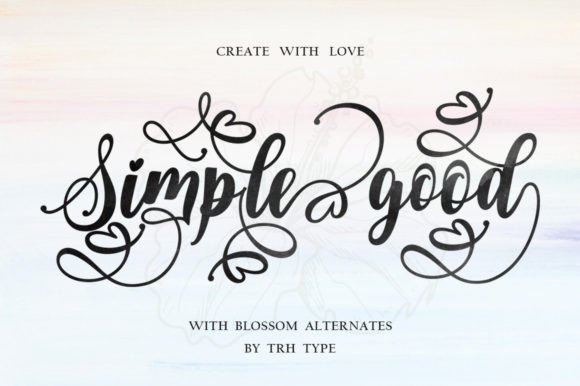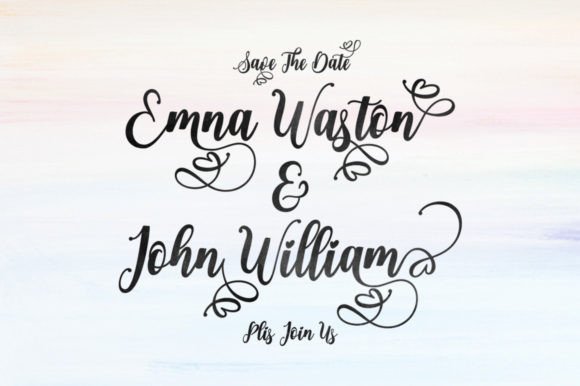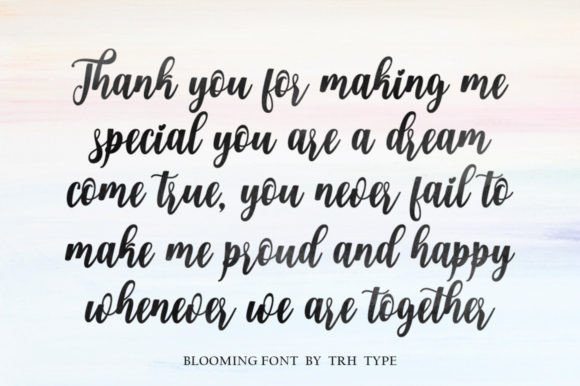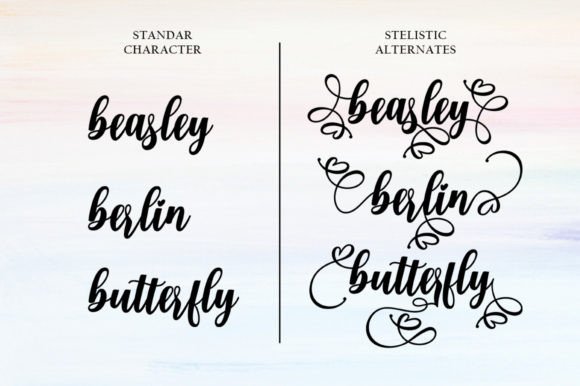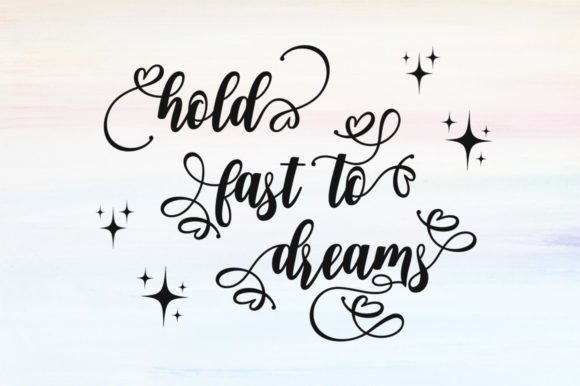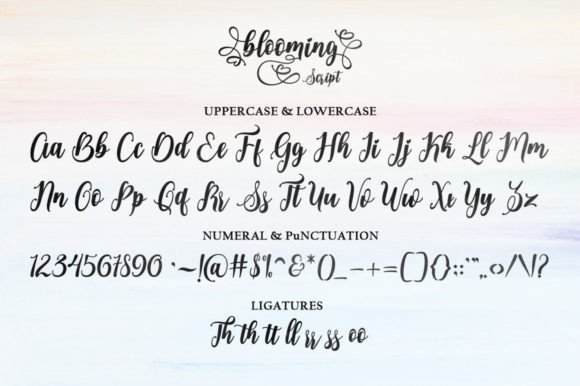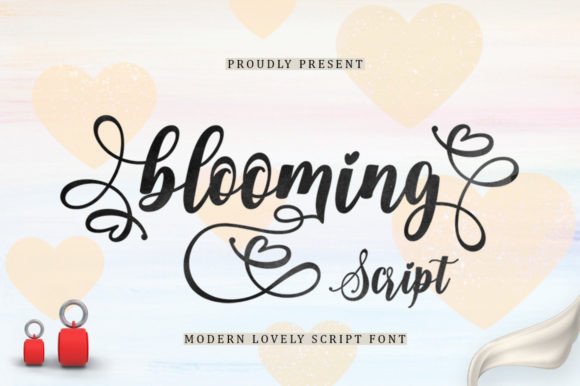
The Blooming Font: A Fresh Take on Modern Script Typography
I’ll never forget the moment I stumbled upon the perfect font for a client’s wedding invitation project. I had been searching for what felt like hours, scrolling through page after page of Google results, and testing font after font in Canva. But nothing seemed quite right – until I discovered the Blooming font. With its fresh, modern take on script typography and handcrafted calligraphic style, it was love at first sight! 💕
- ✅ The Blooming font boasts a beautiful, modern script style with a handcrafted feel that’s perfect for invitations, greeting cards, and other creative projects.
- ✅ With its PUA encoding, accessing the amazing glyphs and ligatures is a breeze, giving you a wide range of options to customize your designs.
- ✅ The font includes numerous heart illustrations, adding a playful touch to your designs and making it ideal for projects that require a touch of whimsy.
- ✅ It’s incredibly versatile, suitable for various design applications, including branding materials, business cards, quotes, posters, and more!
While the Blooming font is exceptional, there are a few minor things to keep in mind:
- 🤔 Some users might find the font’s dancing baselines a bit challenging to work with, especially when it comes to aligning text.
- ⚠️ As with any script font, it may not be the best choice for body text or long paragraphs, as it can be a bit harder to read.
The Blooming font was designed with the intention of capturing the beauty and elegance of handcrafted calligraphy. The designer, inspired by the works of traditional calligraphers, aimed to create a font that would bring a touch of whimsy and romance to creative projects. With its unique blend of modern and classic elements, the Blooming font is sure to delight designers and crafters alike.
Q: What is PUA encoding, and how does it benefit the Blooming font?
A: PUA (Private Use Area) encoding allows designers to access a wide range of glyphs and ligatures, making it easier to customize and personalize their designs. In the case of the Blooming font, PUA encoding provides access to numerous heart illustrations and other decorative elements.
Q: Is the Blooming font suitable for body text or long paragraphs?
A: While the Blooming font is beautiful, it’s not ideal for body text or long paragraphs. Its script style and dancing baselines make it better suited for headings, titles, and short text passages.